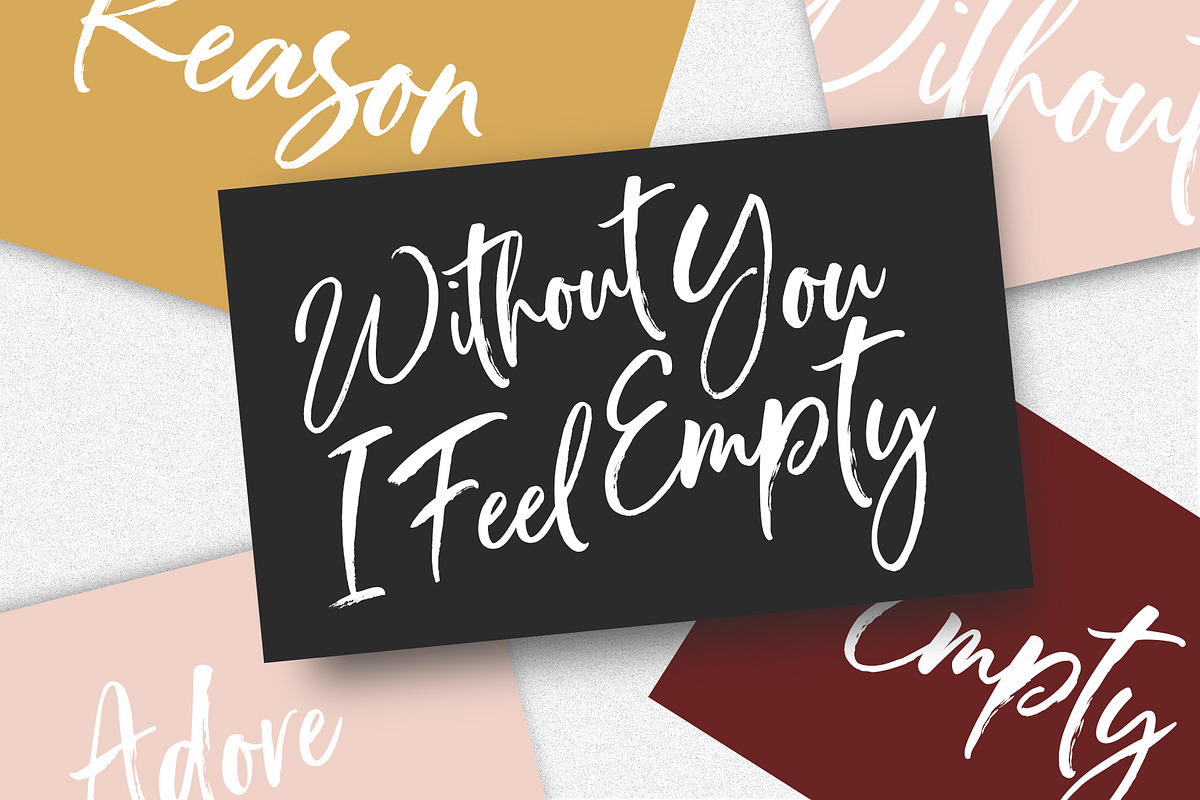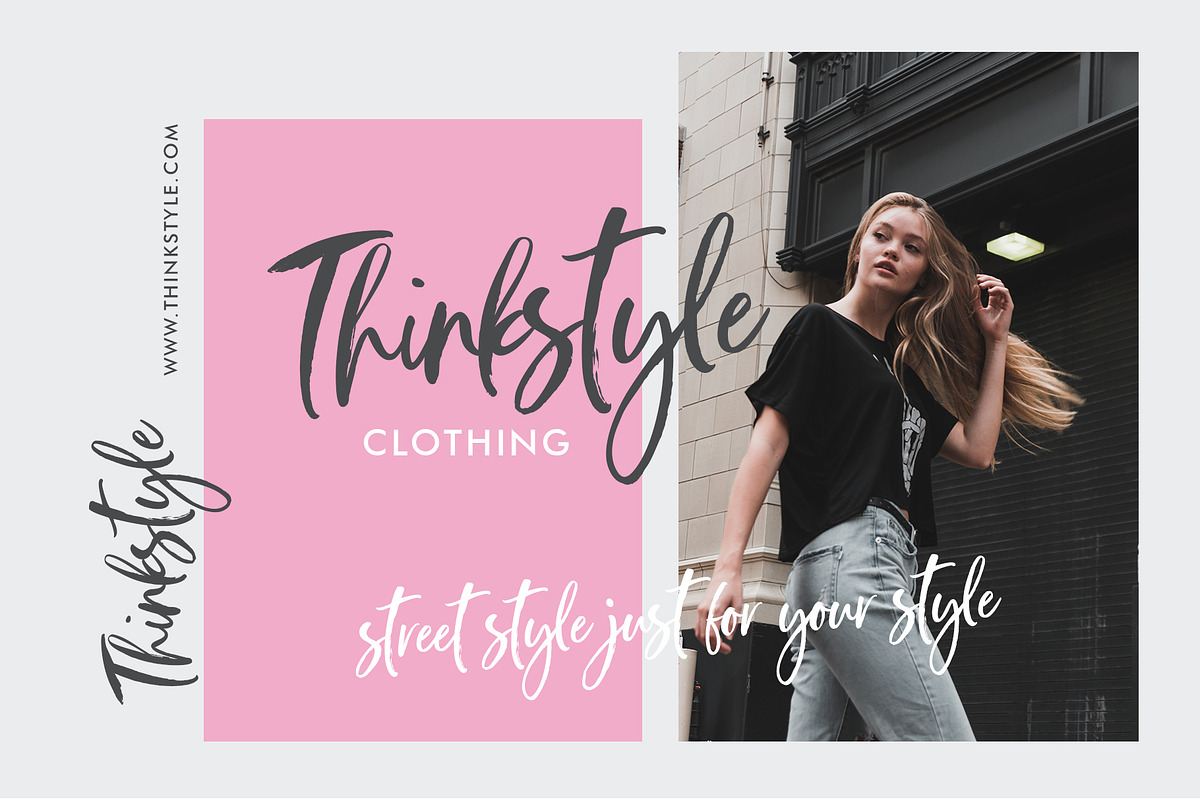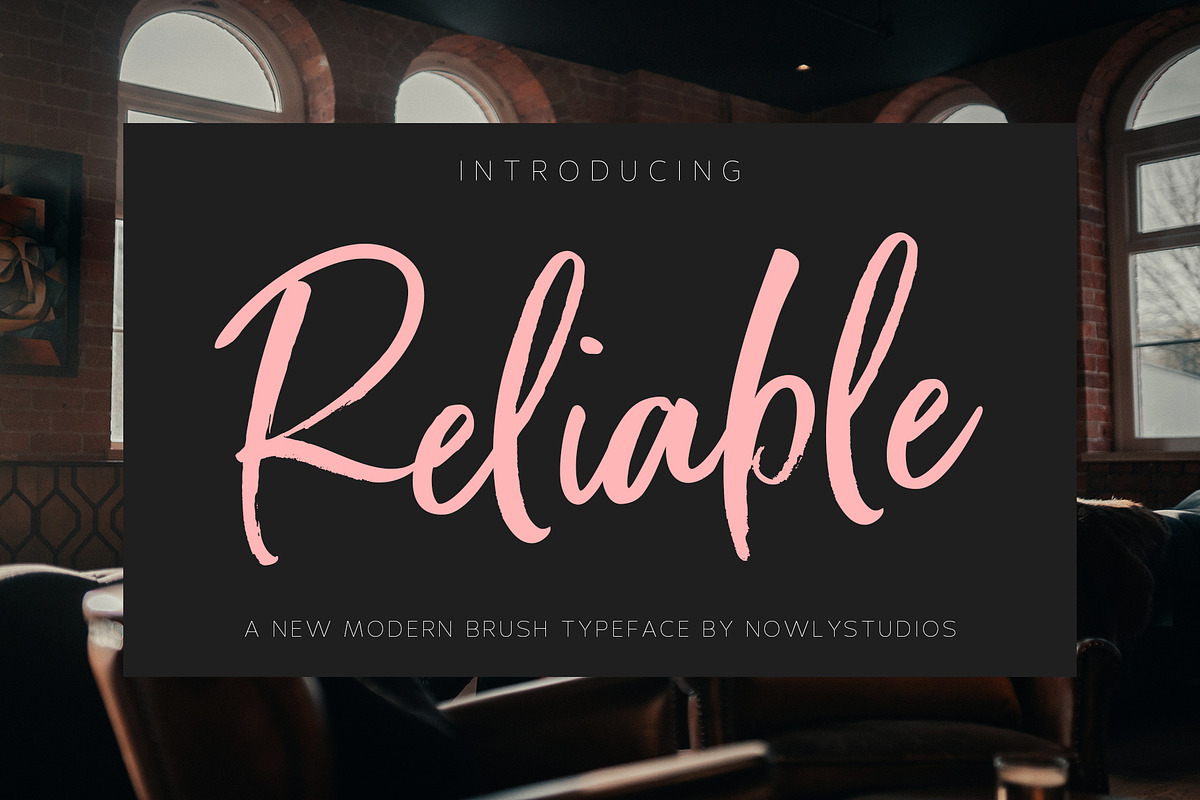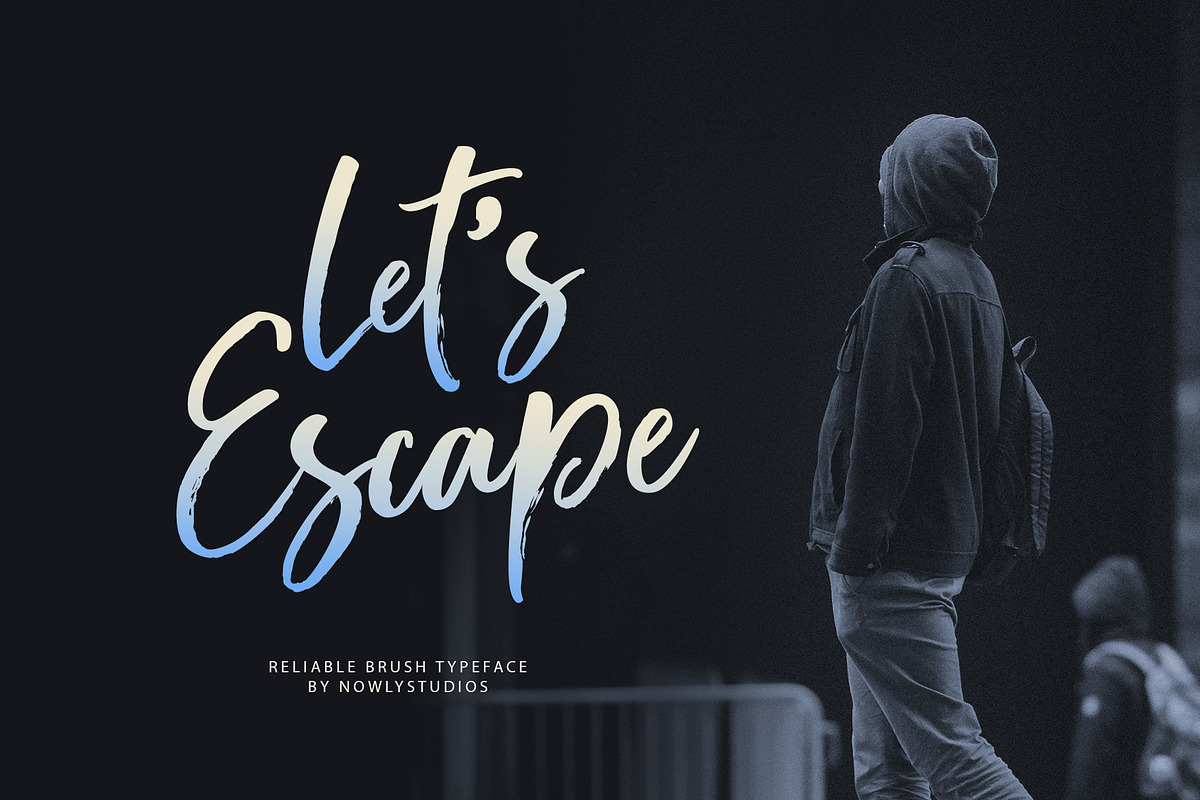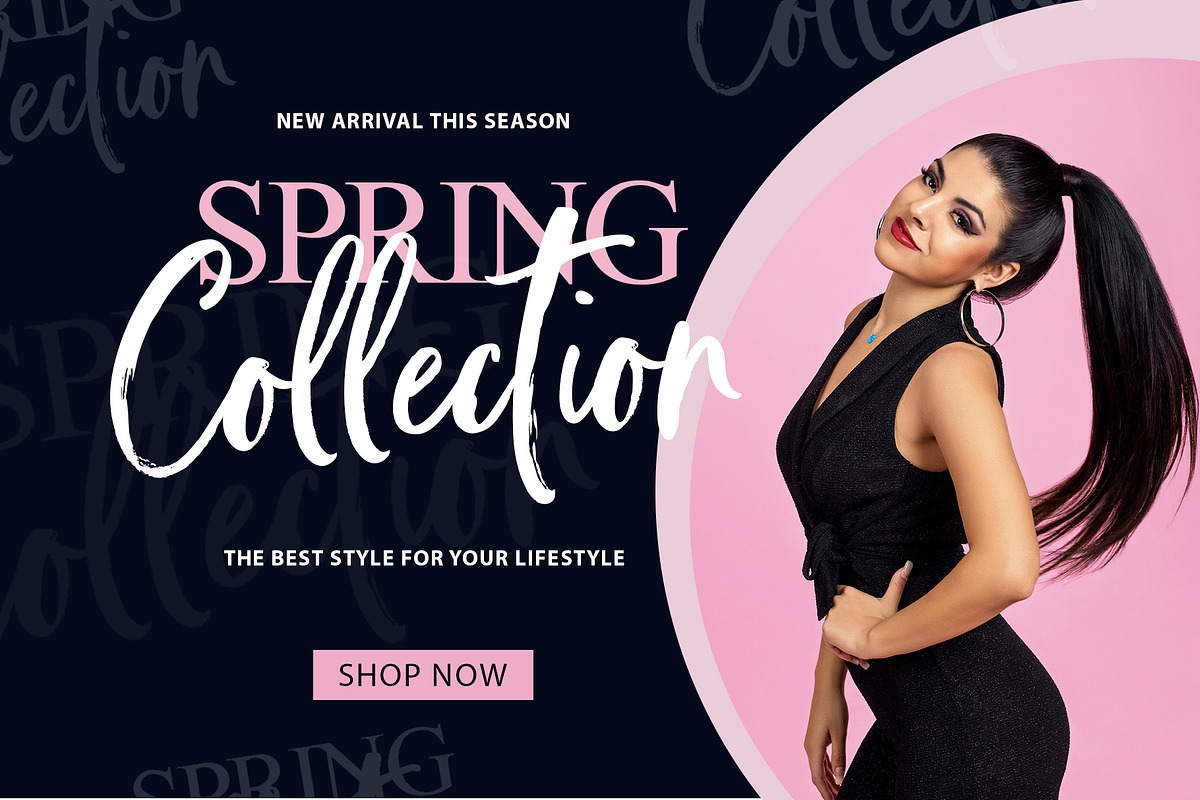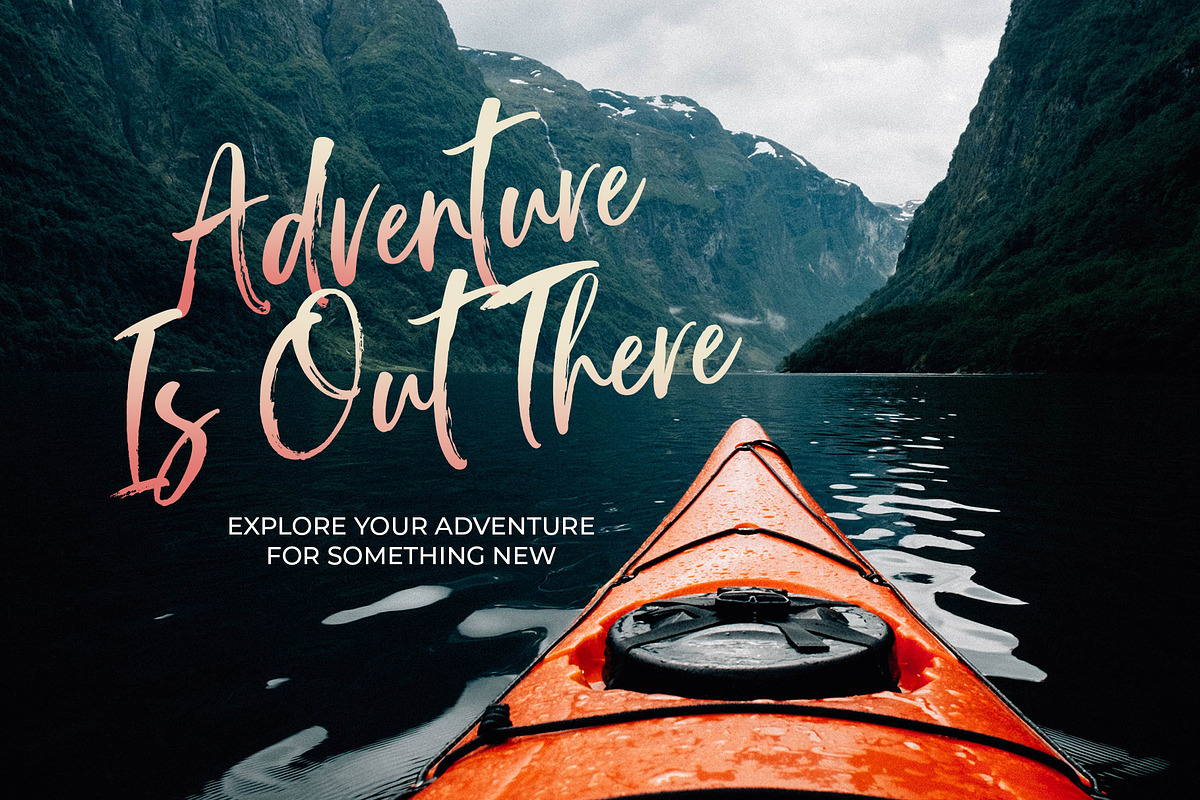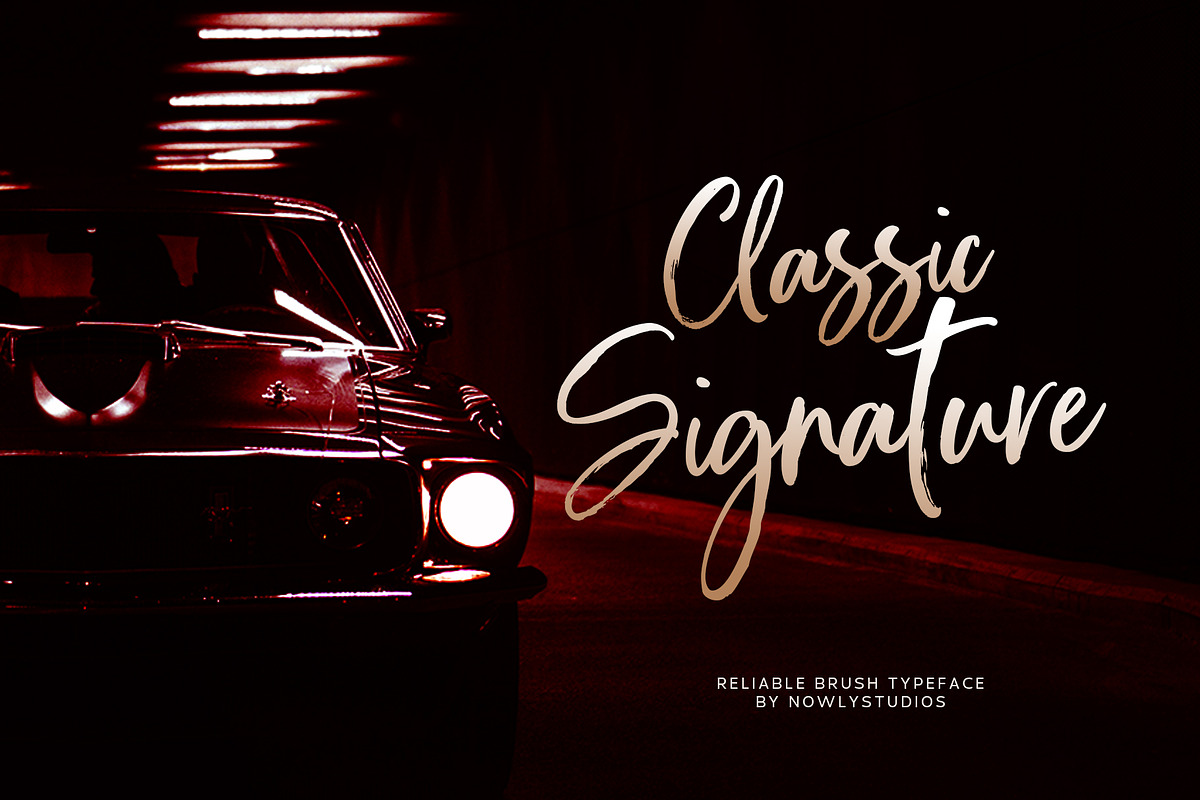
Reliable Brush
Reliable Brush, a handmade font ready to use for any design need. Written with the original brush pen.
Reliable is perfect for beautiful taglines, titles, book covers, logos, some daily quotes, invitations, posters, and any design project that requires a natural touches.